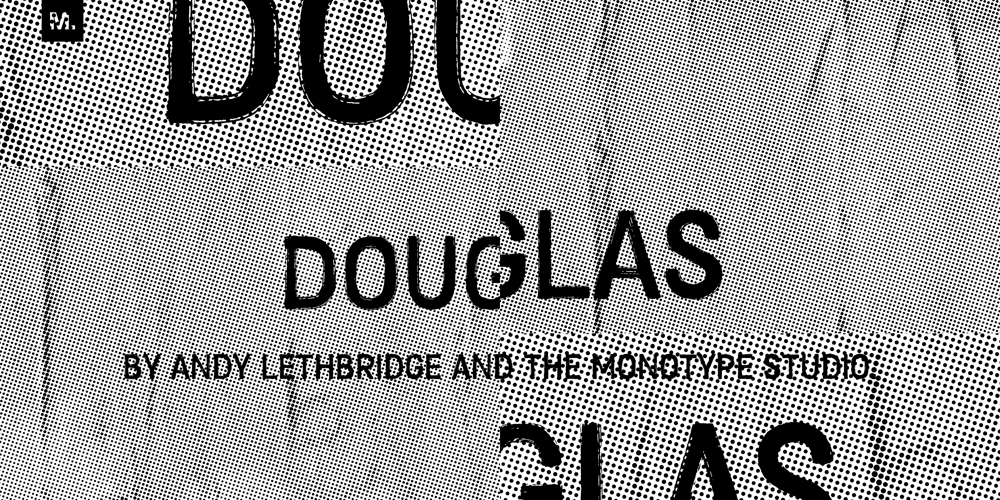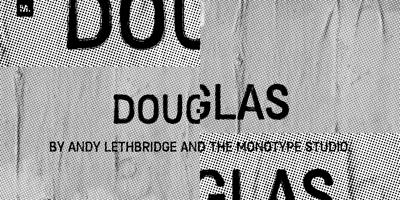
Douglas Font Family was designed by Andrew Lethbridge and published by Monotype. Douglas contains 1 styles and family package options. An upstanding, dark horse of a font, Douglas comes in two sets of all capitals and is authoritarian while flying the flag for idiosyncrasies. The font was created using a loose brush and rough paper, and the authentic textures of the lettering indicates these rough and ready roots. Perfect for rustic signage.